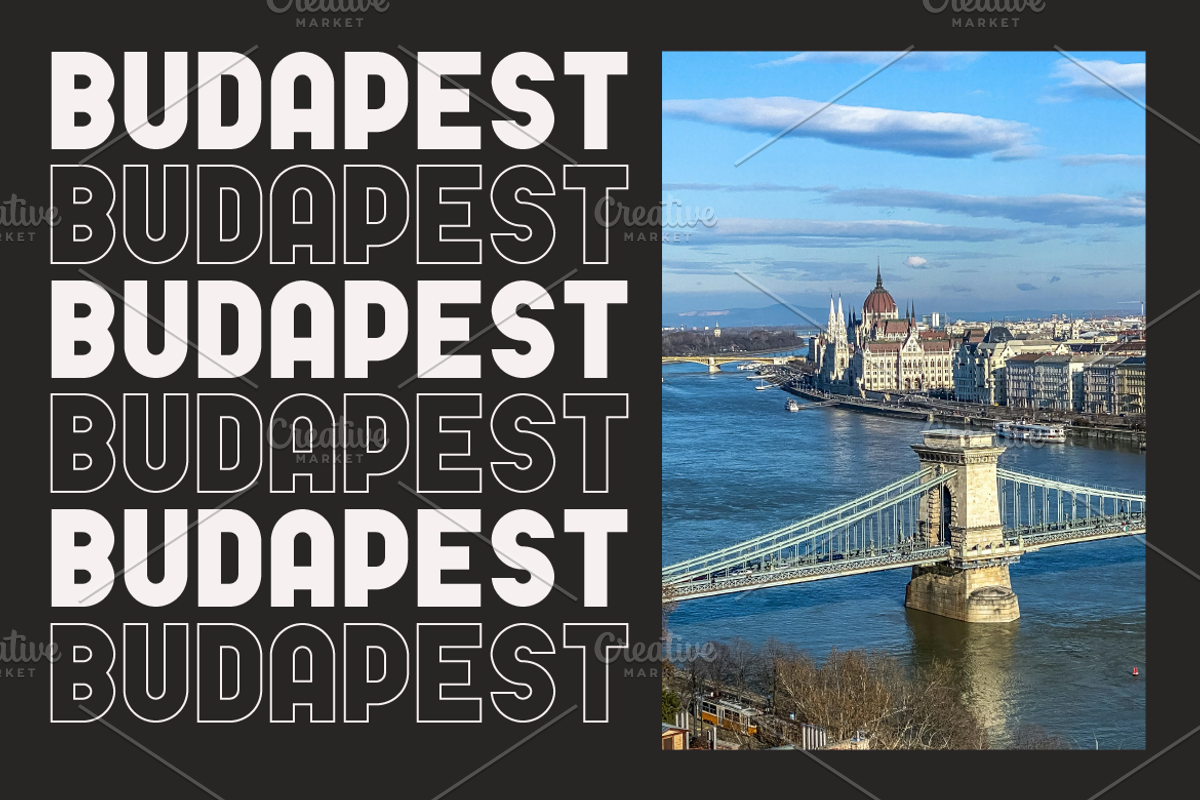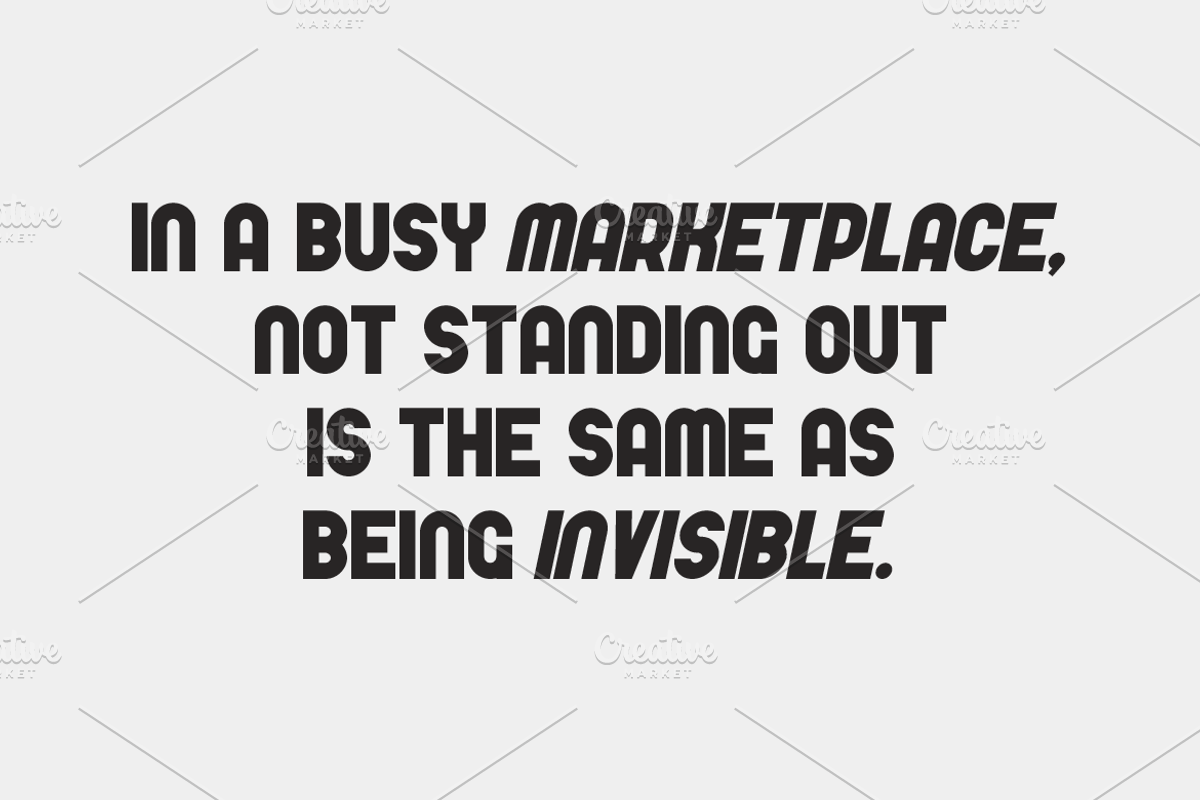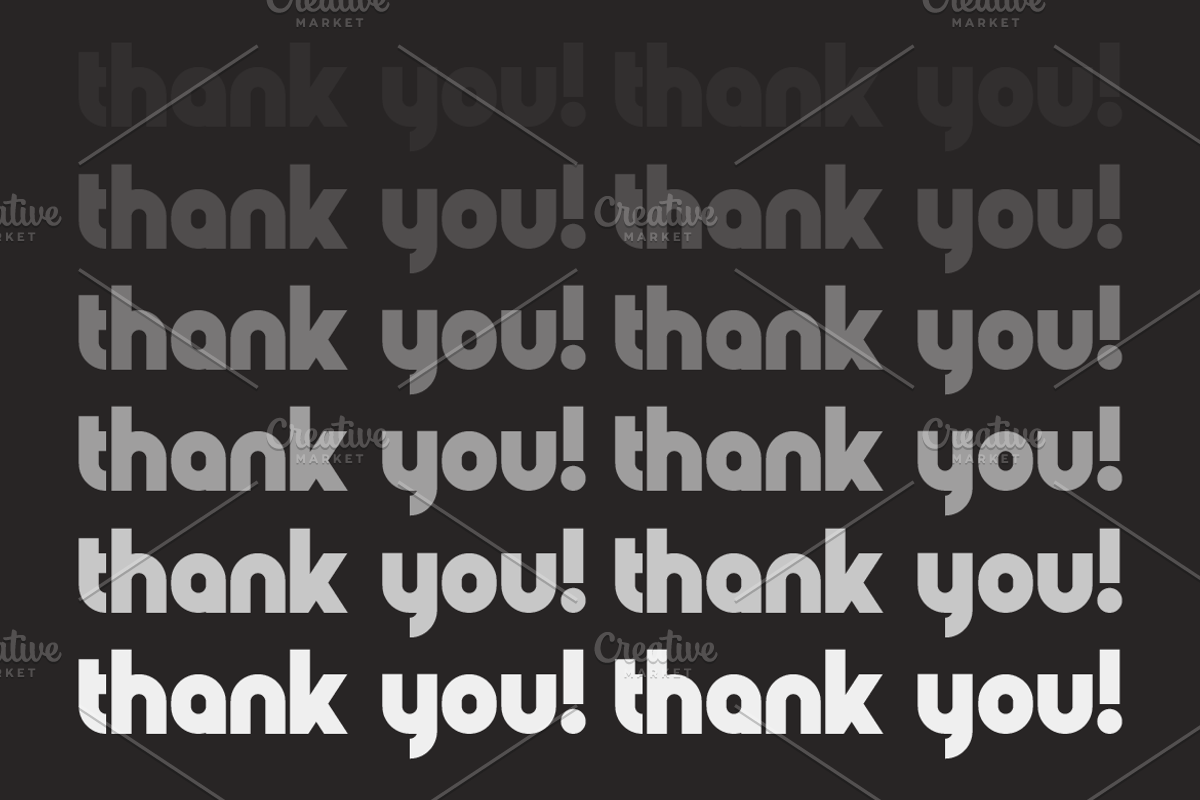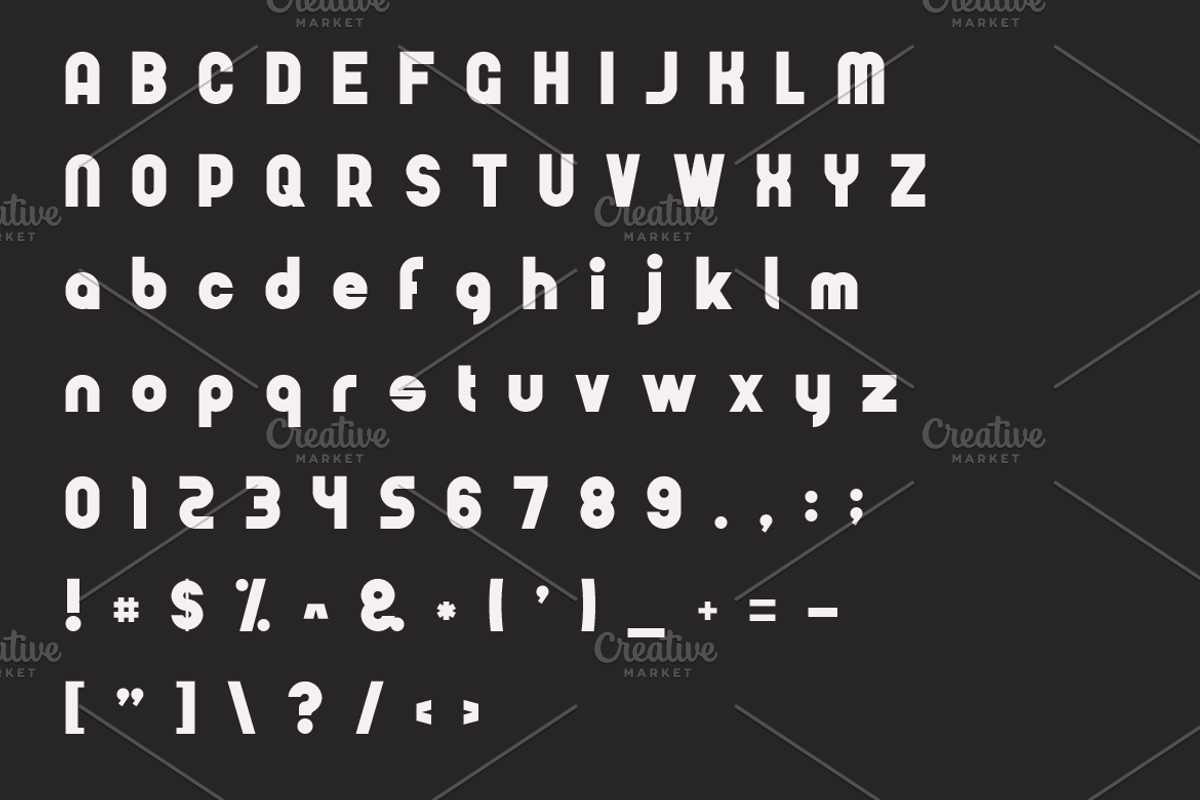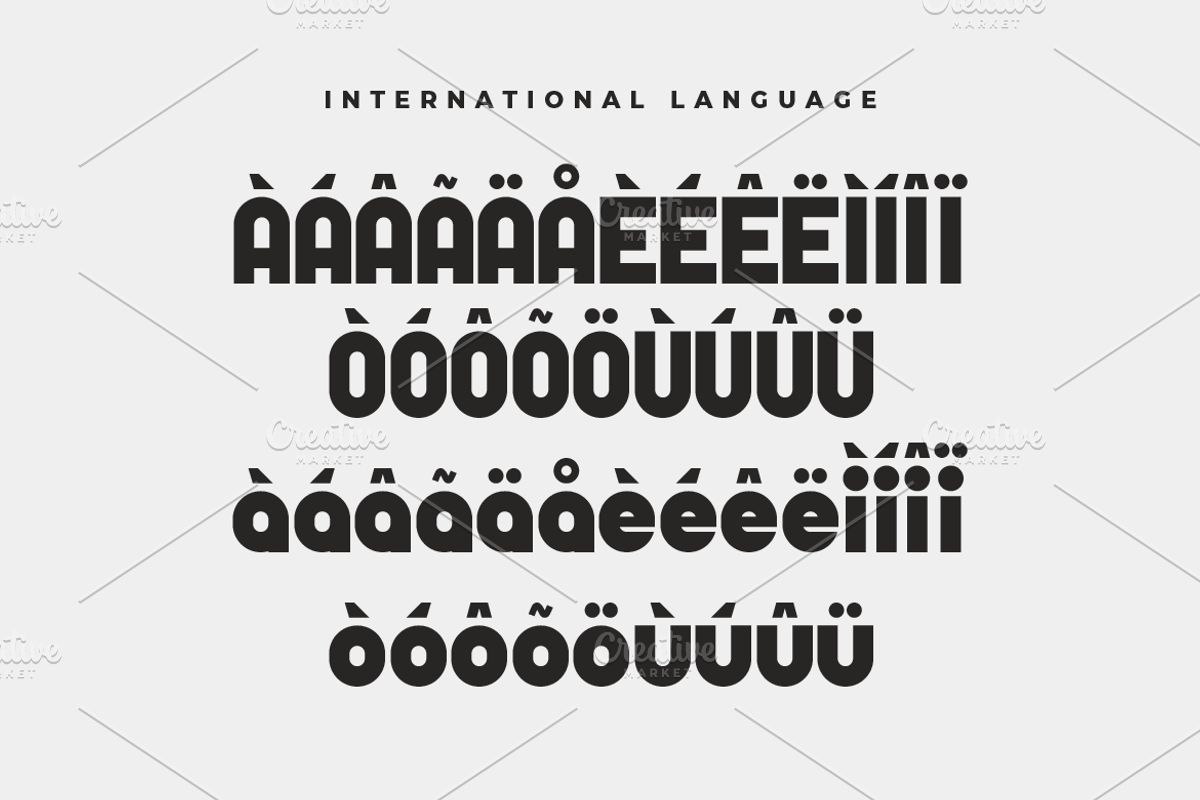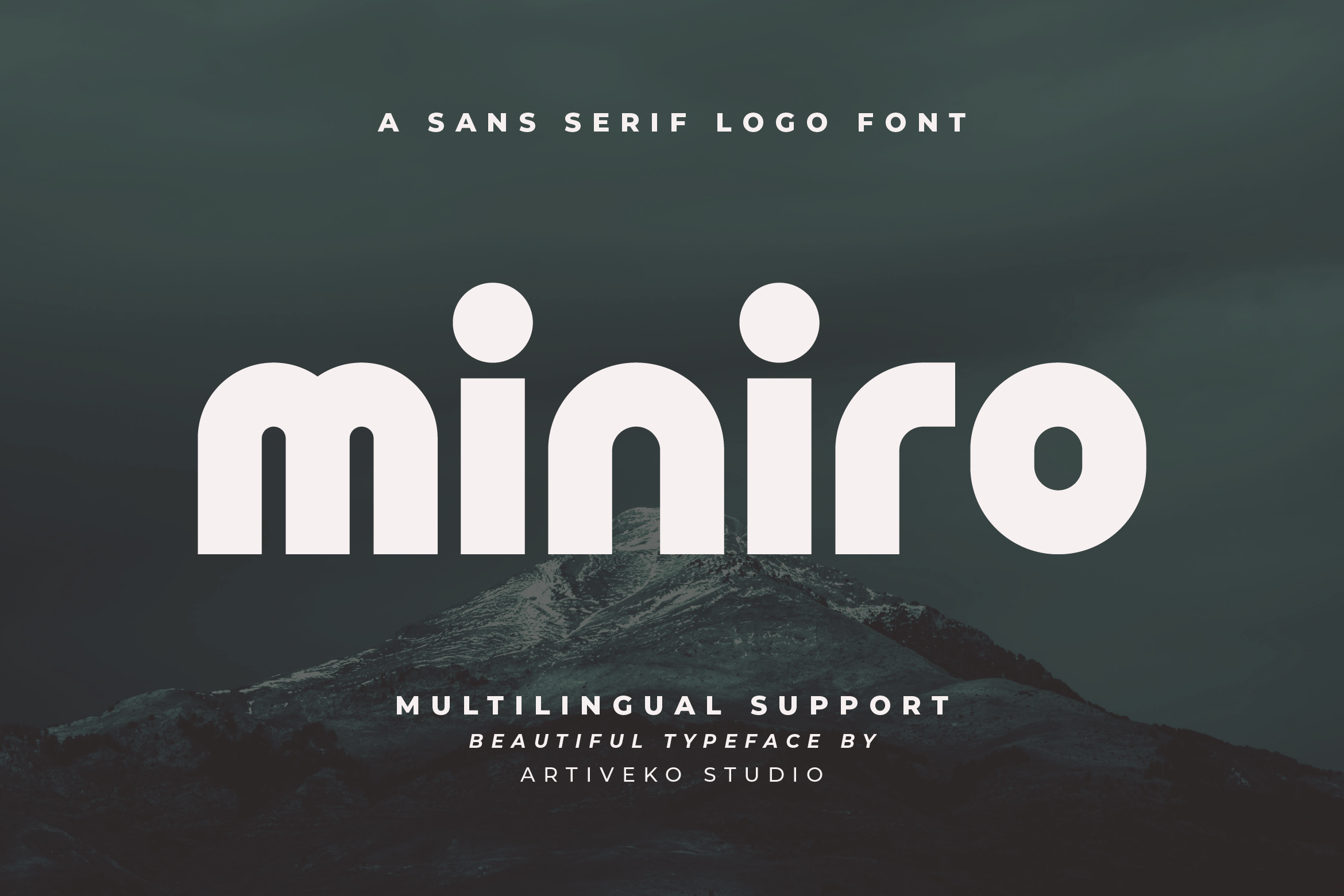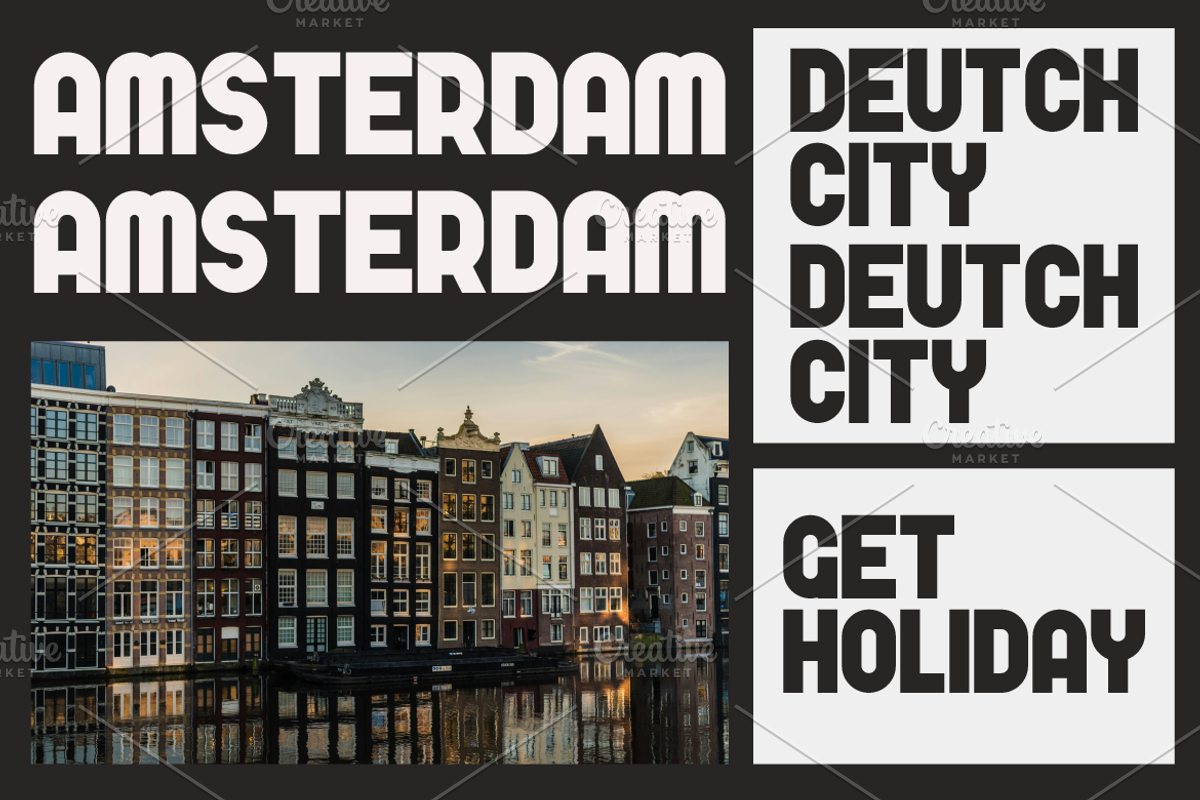
Miniro Sans Serif Logo Font
Miniro is a distinctive sans serif font, designed by Iwan Alwan. It features a unique style with variations in uppercase and lowercase letters, adding a touch of originality to your text. Miniro supports multiple languages, making it versatile for diverse projects. Ideal for branding, headlines, and digital content, this font seamlessly combines creativity and functionality, offering a modern yet elegant typographic solution.